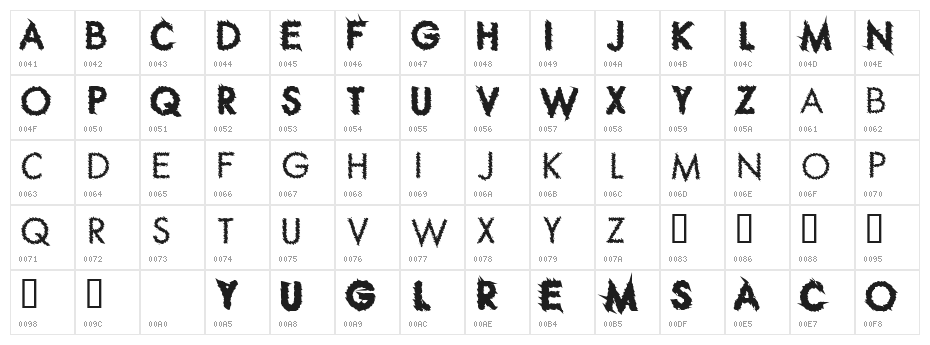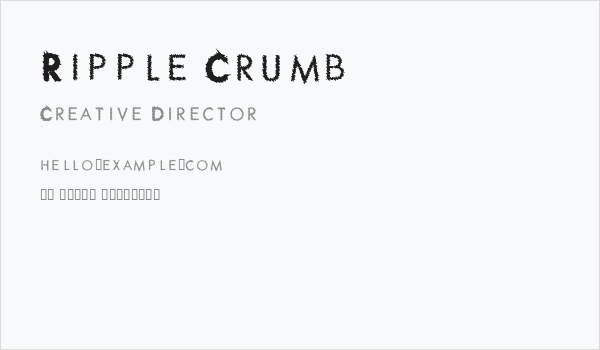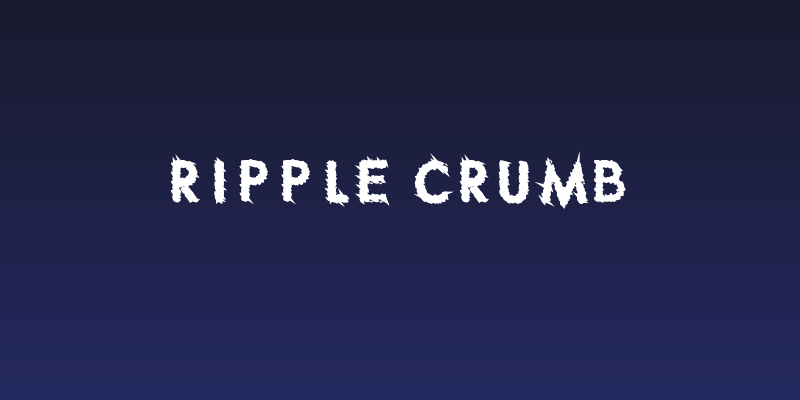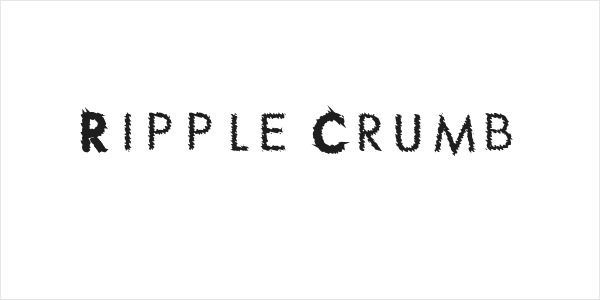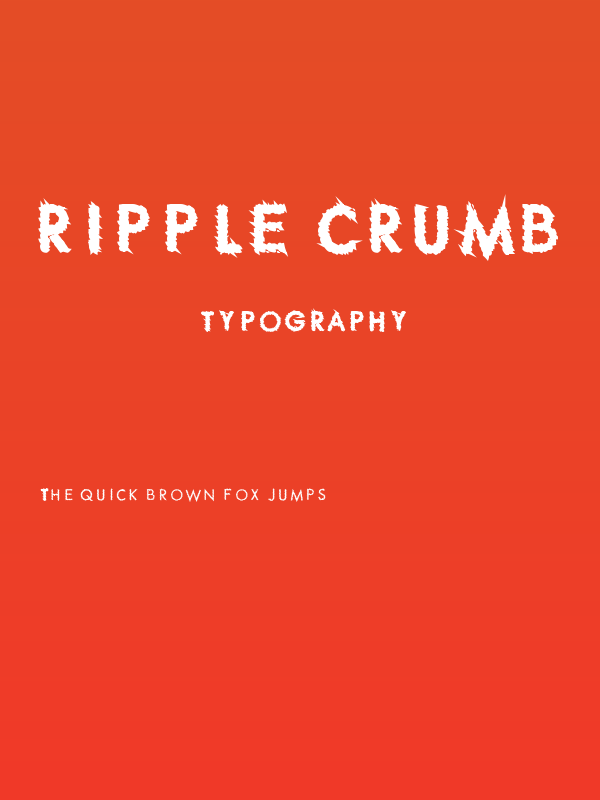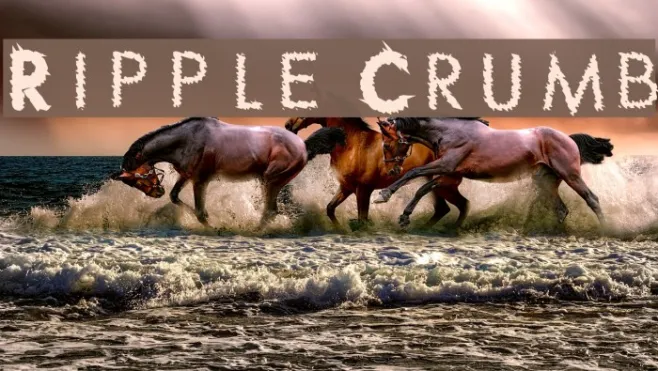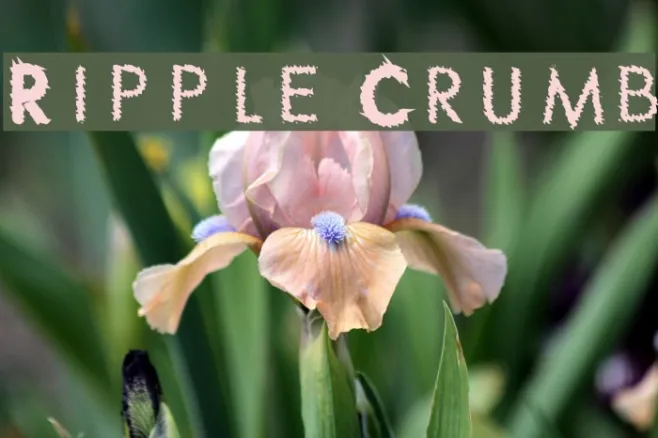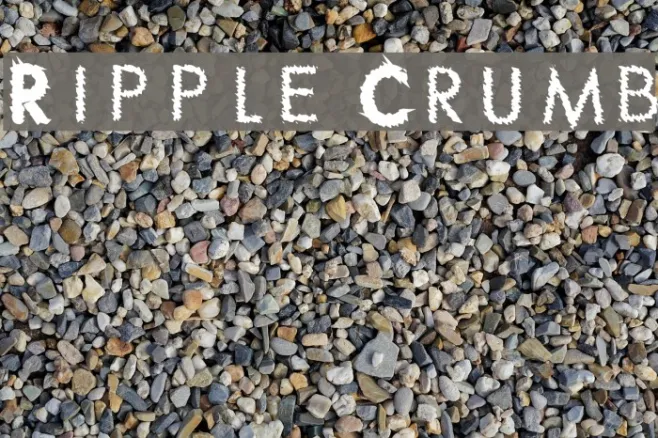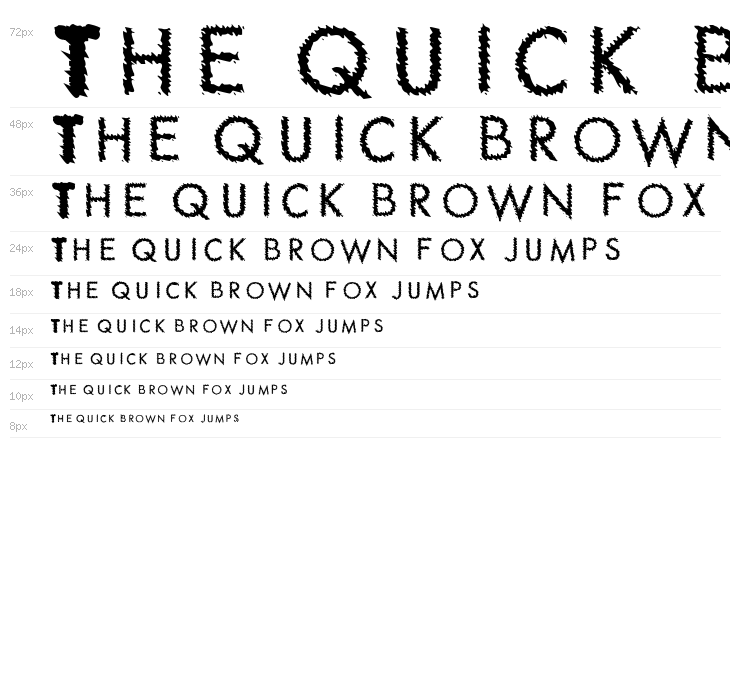
Ripple Crumb Font
Ripple Crumb Description
This font features a unique, jagged texture that gives each character a dynamic and edgy appearance. The uppercase and lowercase letters maintain a consistent style, with sharp, irregular edges that create a sense of movement and energy. The numbers and special characters follow the same design principles, ensuring a cohesive look across all glyphs. This font's bold and distinctive style makes it stand out, perfect for projects that require a strong visual impact. The irregularity in the strokes adds a playful yet intense vibe, making it suitable for creative and unconventional designs.
| Overall Style | Modern, Edgy |
| Proposed Projects | Ideal for album covers, posters, branding for edgy or alternative products, and any design needing a bold statement. |